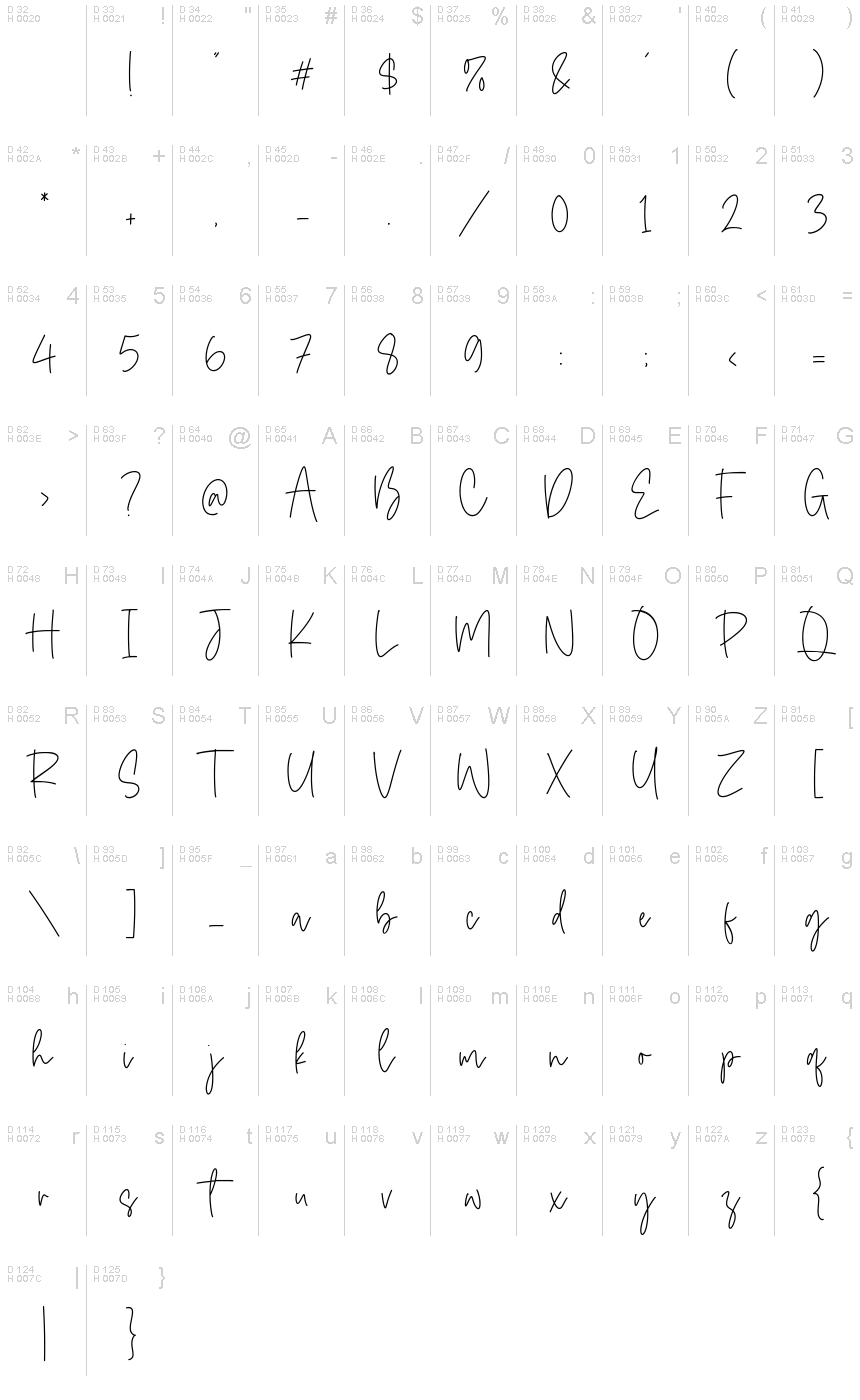
Darling Butter
Darling Butter, designed by Timur Type, exudes a whimsical charm with its handwritten style that appears effortlessly graceful. Its light touch and fluid lines evoke the sensation of a swift, personal signature, giving it an intimate and bespoke quality. Each character is imbued with a sense of individuality as if crafted by the stroke of an artist's pen.
This font finds its place in design contexts that call for a touch of personality and elegance. Ideal for invitations, branding materials, or any project that seeks to convey warmth and authenticity, Darling Butter's inviting aesthetic ensures it stands out in creative applications where a human touch transforms the ordinary into something memorable.